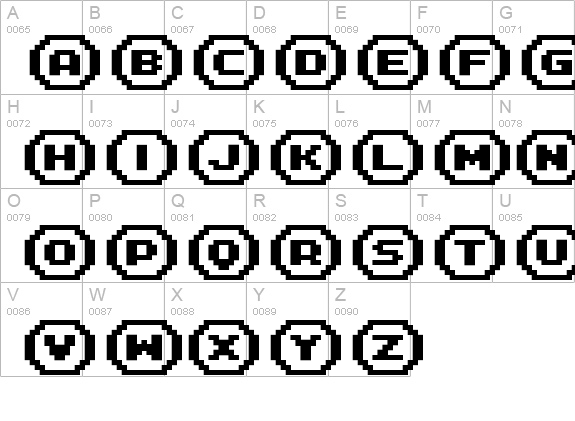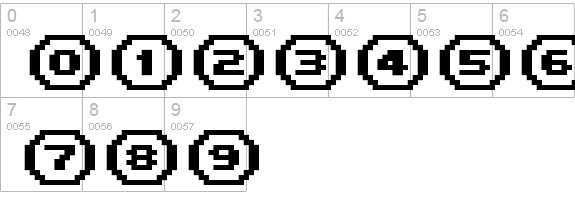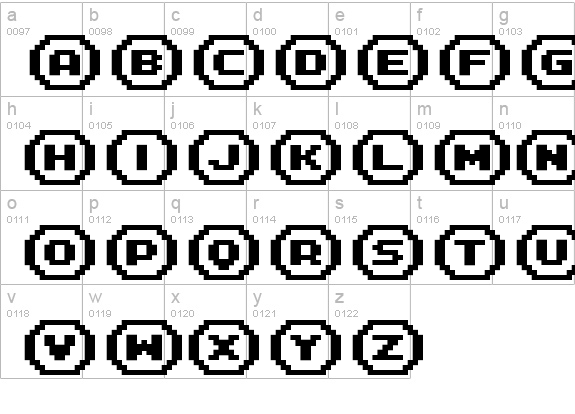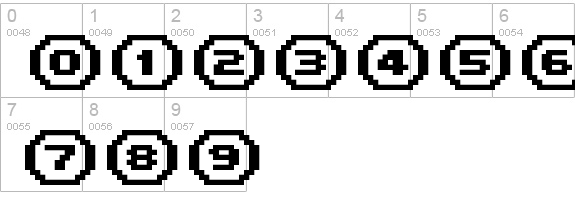
FFF Interface07b Font Details
FFF Interface07b font is a versatile and modern typeface that combines sleek lines with a futuristic design. This font is perfect for creating eye-catching headlines, logos, and posters that demand attention. With its clean and geometric shapes, FFF Interface07b exudes a sense of professionalism and sophistication. What makes FFF Interface07b even more appealing is the fact that it is completely free to download. You can easily access this font at FontsMarket.com, where you can unleash your creativity without any cost. Whether you are a graphic designer, web developer, or just someone looking to spice up their next project, FFF Interface07b is a fantastic choice that will elevate your designs to the next level. Download this font today and see the difference it can make in your work.